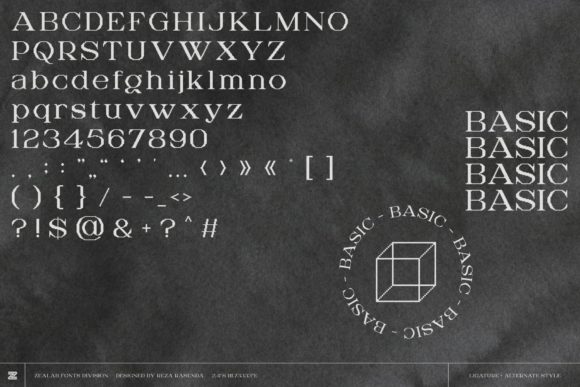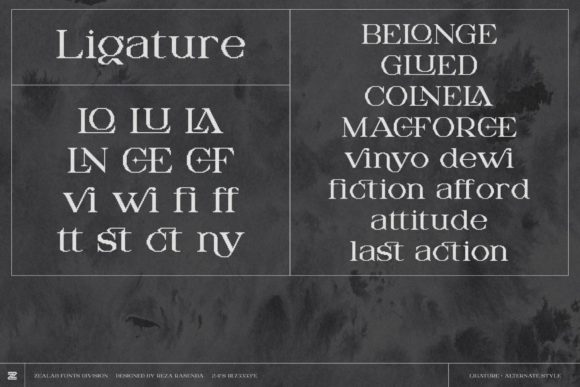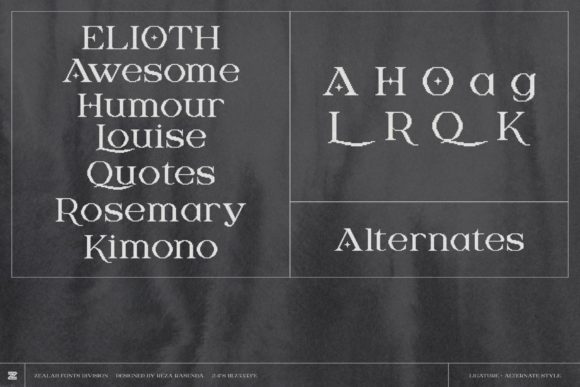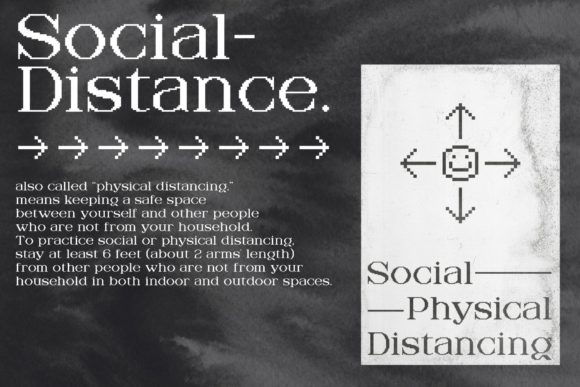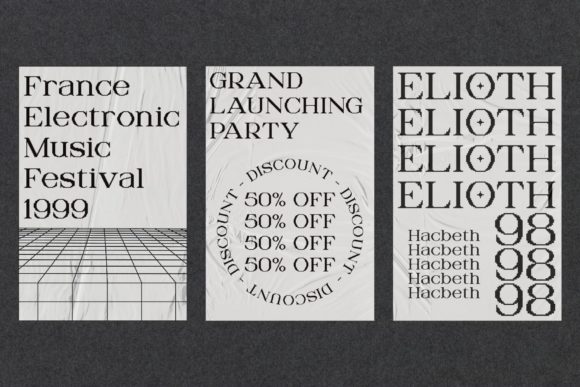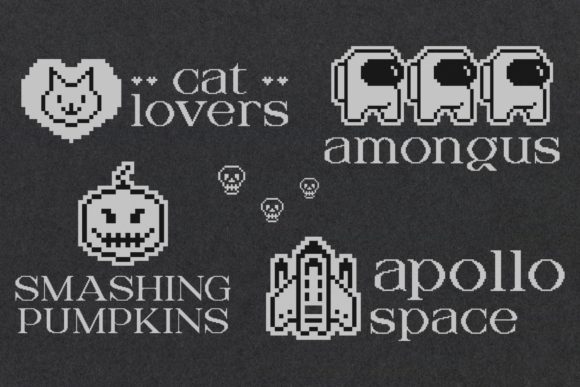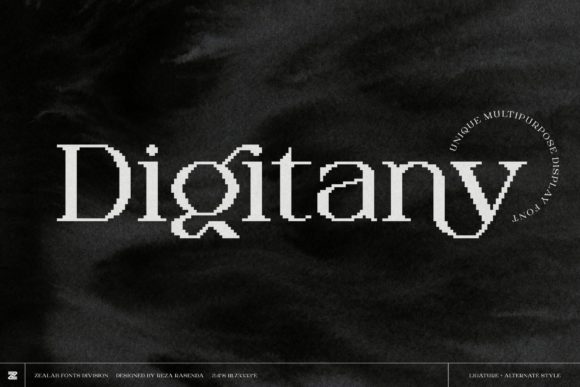
Introducing Digitany Font: The Ultimate Multipurpose Display Font
Are you tired of using the same old fonts in your designs? Look no further! Digitany Font is here to revolutionize the way you create. This multipurpose display font is the perfect blend of luxurious serif and pixel art styles, making it a must-have for designers and crafters alike.
The Perfect Combination of Style and Nostalgia
Digitany Font is a unique and versatile typeface that effortlessly recreates the classic fun vibes of the 80’s. With its distinctive serif and pixel art combination, this font is sure to add a touch of nostalgia and sophistication to any design project. Whether you’re working on a retro-themed poster, a modern logo, or a craft project, Digitany Font is the perfect choice.
Key Features of Digitany Font
- Multipurpose: Digitany Font is designed to be versatile and can be used for a wide range of projects, from digital designs to print materials.
- Luxurious Serif: The font features a luxurious serif style that adds a touch of elegance and sophistication to any design.
- Pixel Art Style: The pixel art style of Digitany Font gives it a unique and nostalgic feel that’s perfect for retro-themed designs.
- Easy to Read: Despite its decorative style, Digitany Font is easy to read and can be used for both headings and body text.
Uses of Digitany Font
Digitany Font is perfect for a wide range of design projects, including:
- Posters and Flyers: Create eye-catching posters and flyers with a retro twist using Digitany Font.
- Logos and Branding: Use Digitany Font to create unique and memorable logos and branding materials.
- Craft Projects: Add a touch of personality to your craft projects, such as handmade cards and scrapbooking, with Digitany Font.
- Digital Designs: Use Digitany Font in your digital designs, such as social media graphics and website headers, to add a touch of nostalgia and style.
Tips for Using Digitany Font
Here are some tips for getting the most out of Digitany Font:
- Experiment with Colors: Digitany Font looks great in bold, bright colors, so don’t be afraid to experiment and find the perfect color scheme for your design.
- Mix and Match: Combine Digitany Font with other fonts to create a unique and eye-catching design.
- Pay Attention to Size: Make sure to adjust the size of Digitany Font according to the project you’re working on to ensure it remains legible and visually appealing.
In conclusion, Digitany Font is a versatile and stylish multipurpose display font that’s perfect for designers and crafters alike. With its unique combination of luxurious serif and pixel art styles, this font is sure to add a touch of nostalgia and sophistication to any design project. So why wait? Get creative with Digitany Font today and take your designs to the next level!